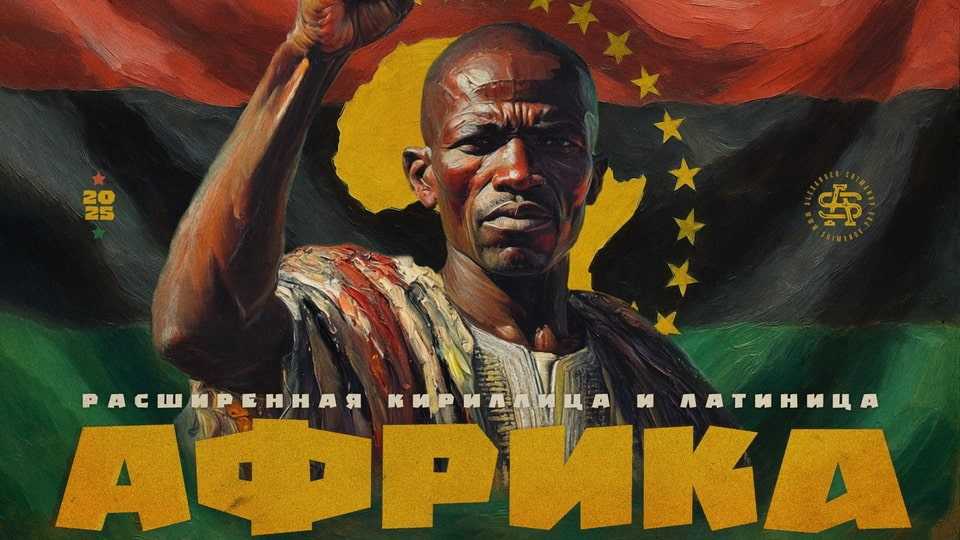
Download ST-Africa font, a revival of the revolutionary spirit — a tribute to a free, anti-colonial Africa. Recommended use: for packaging, film, books, and posters. Designed for projects that require a strong, expressive display typeface.
Designer: Alexander Shimanov